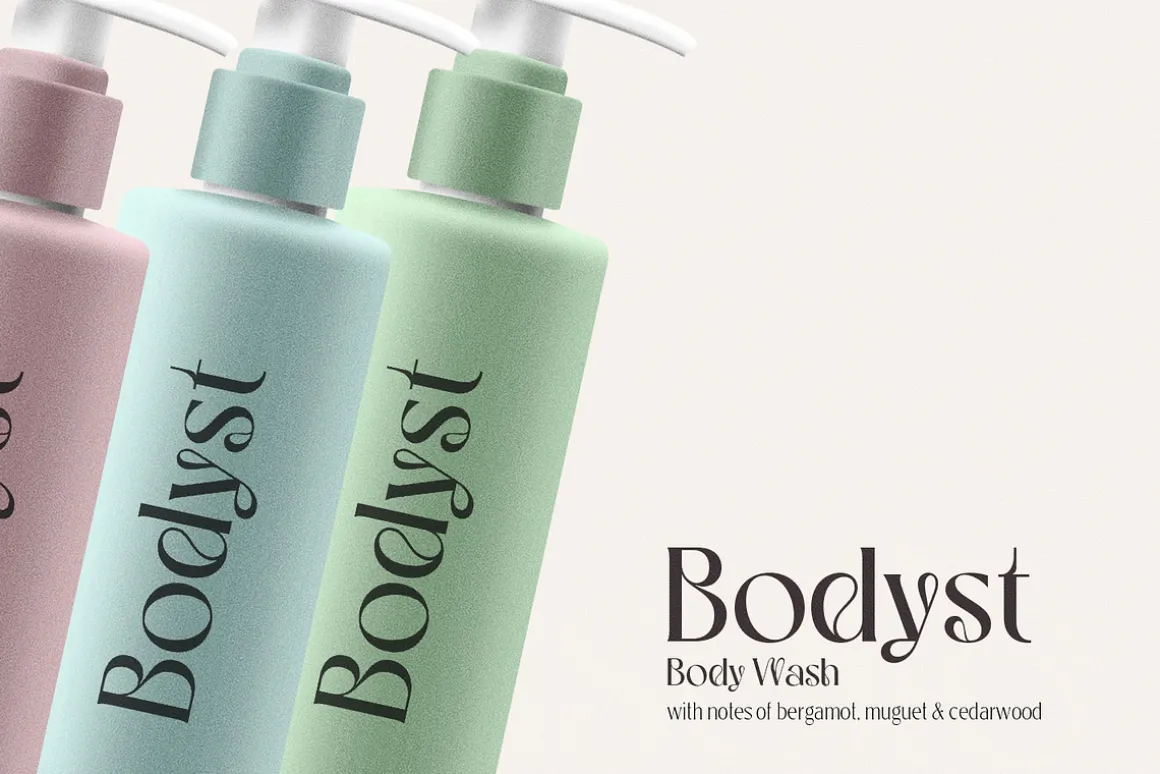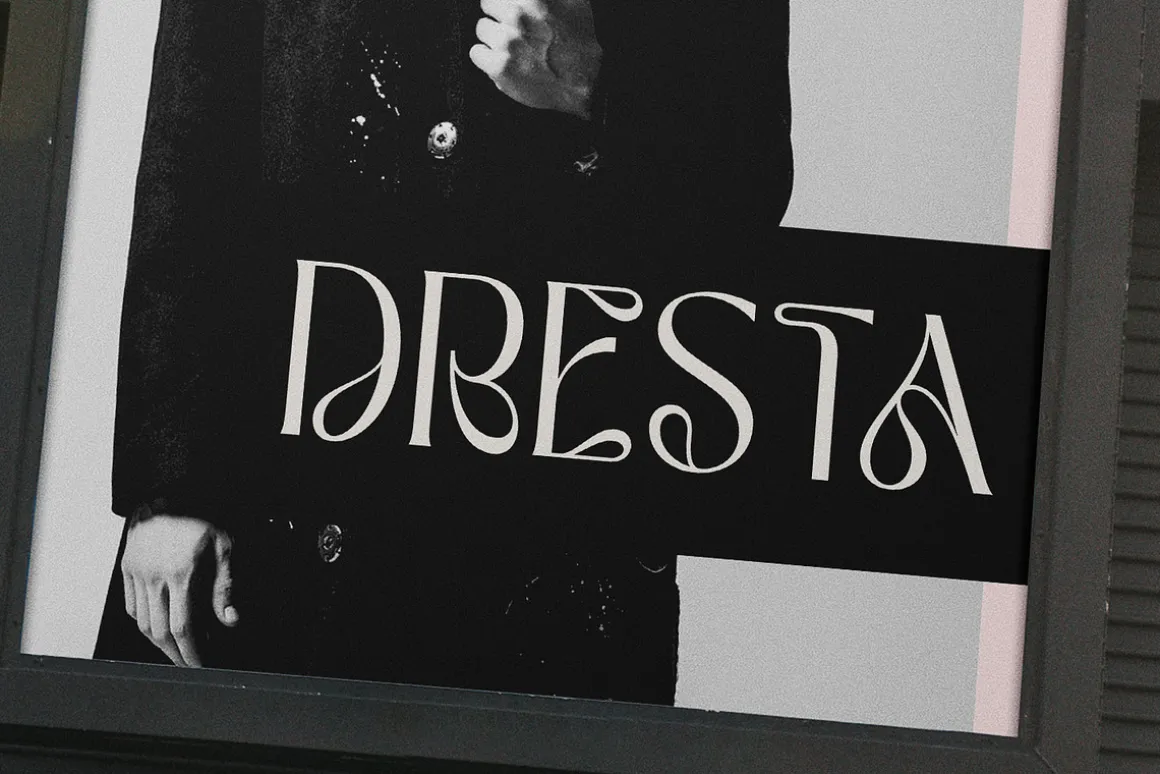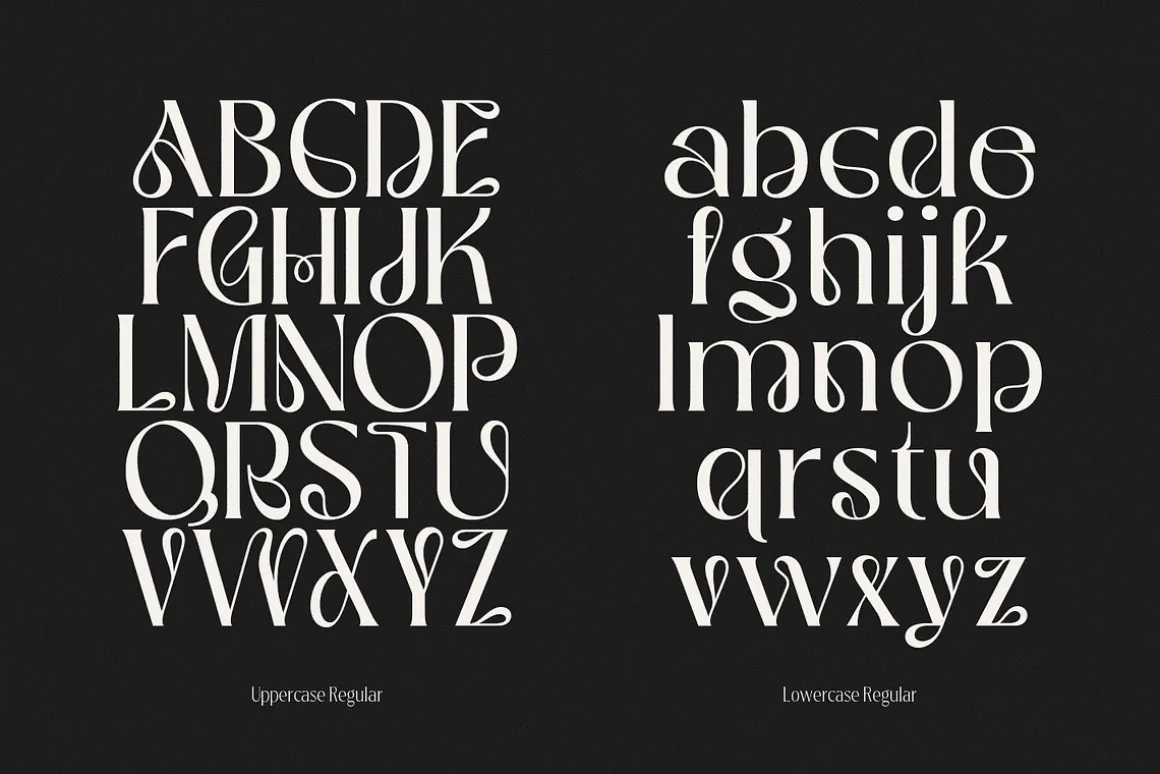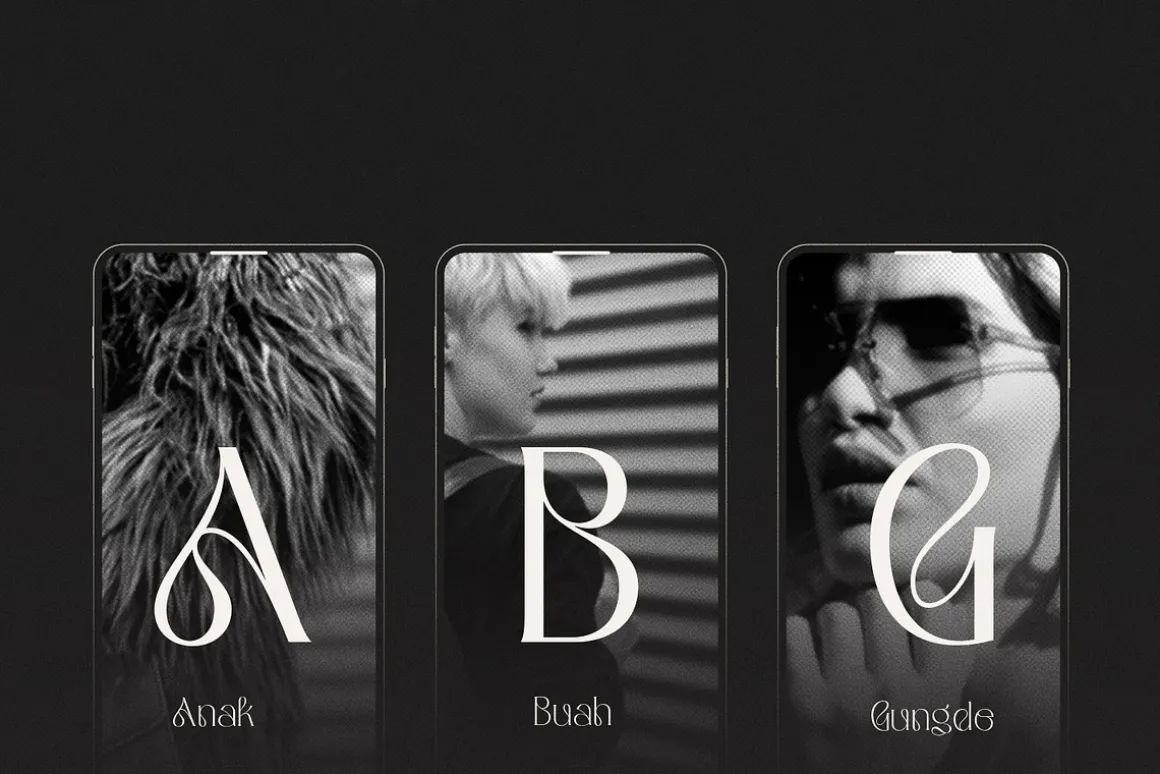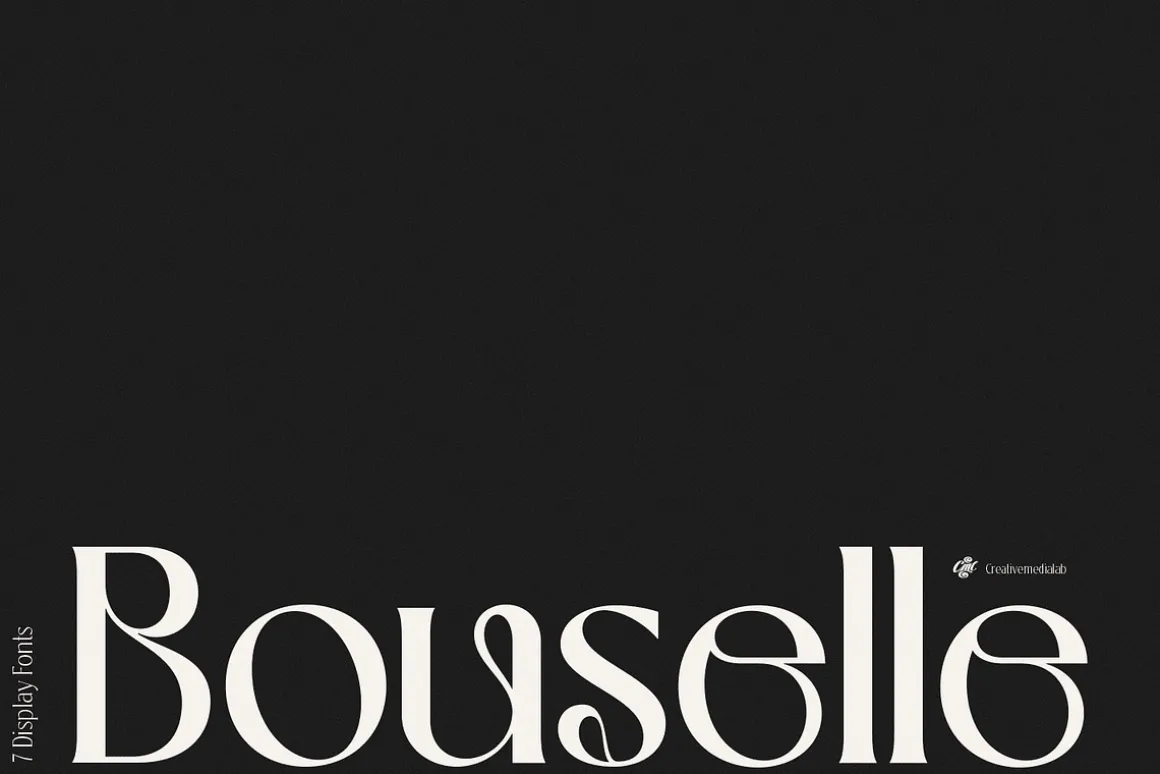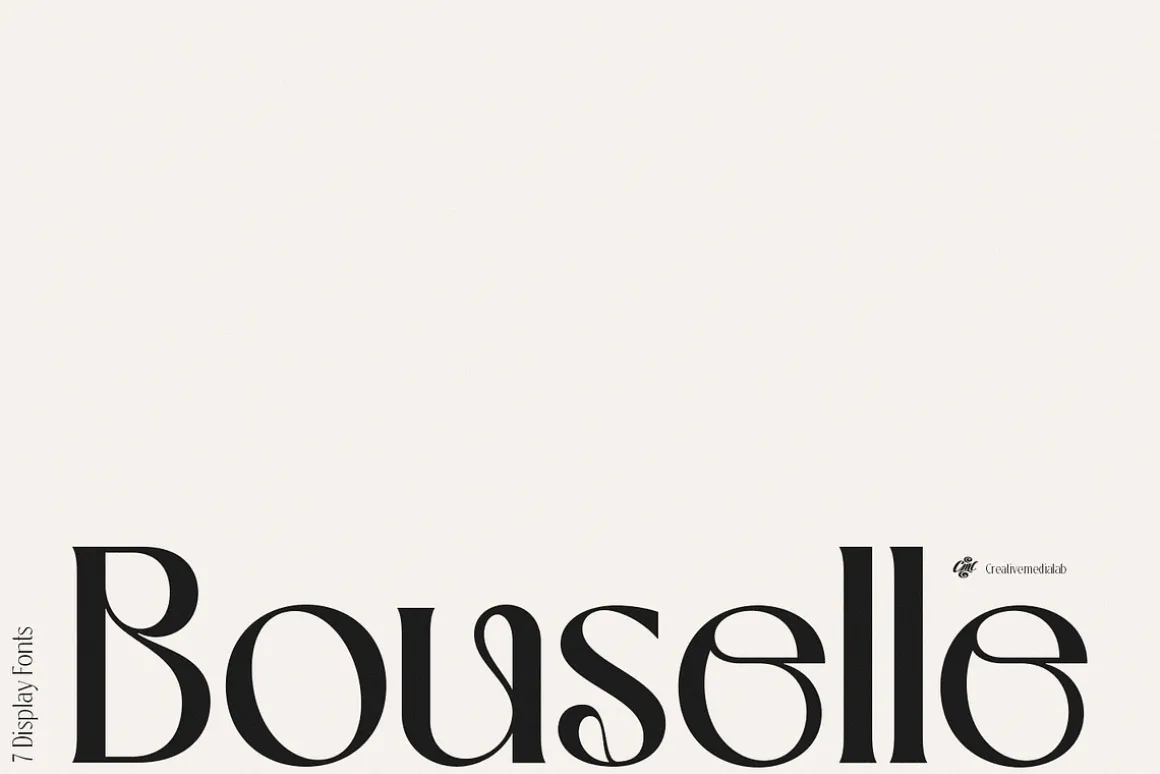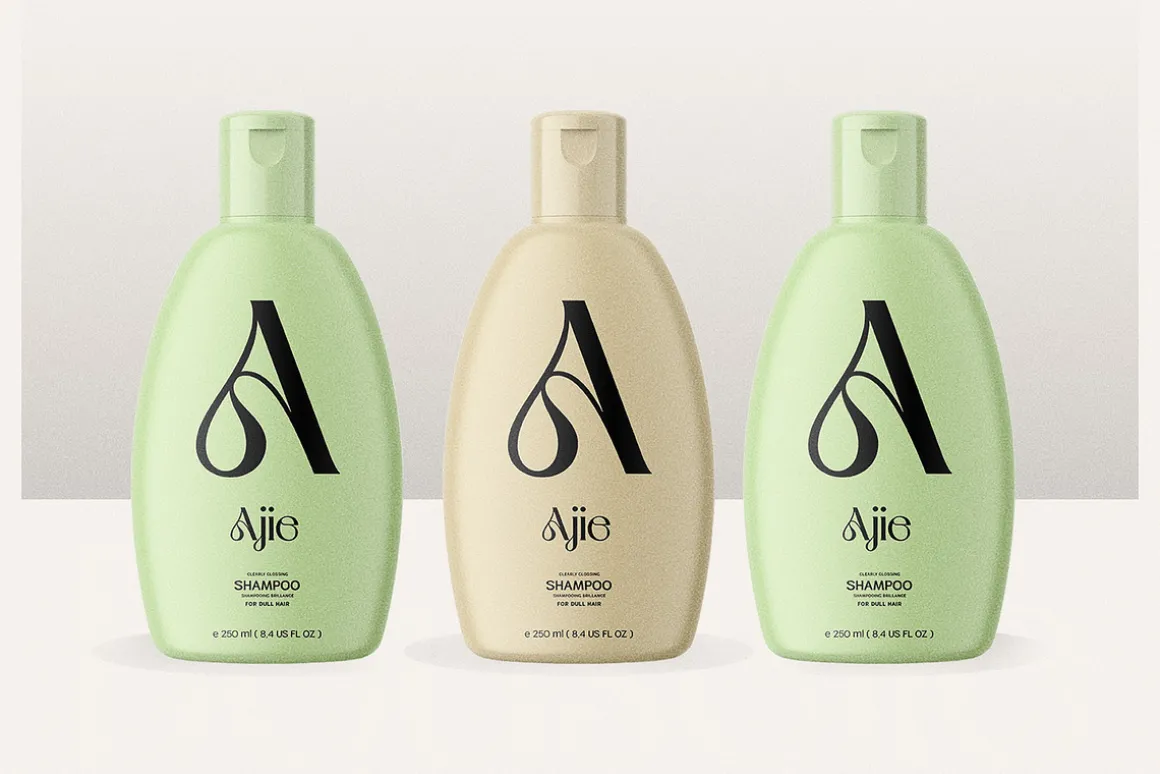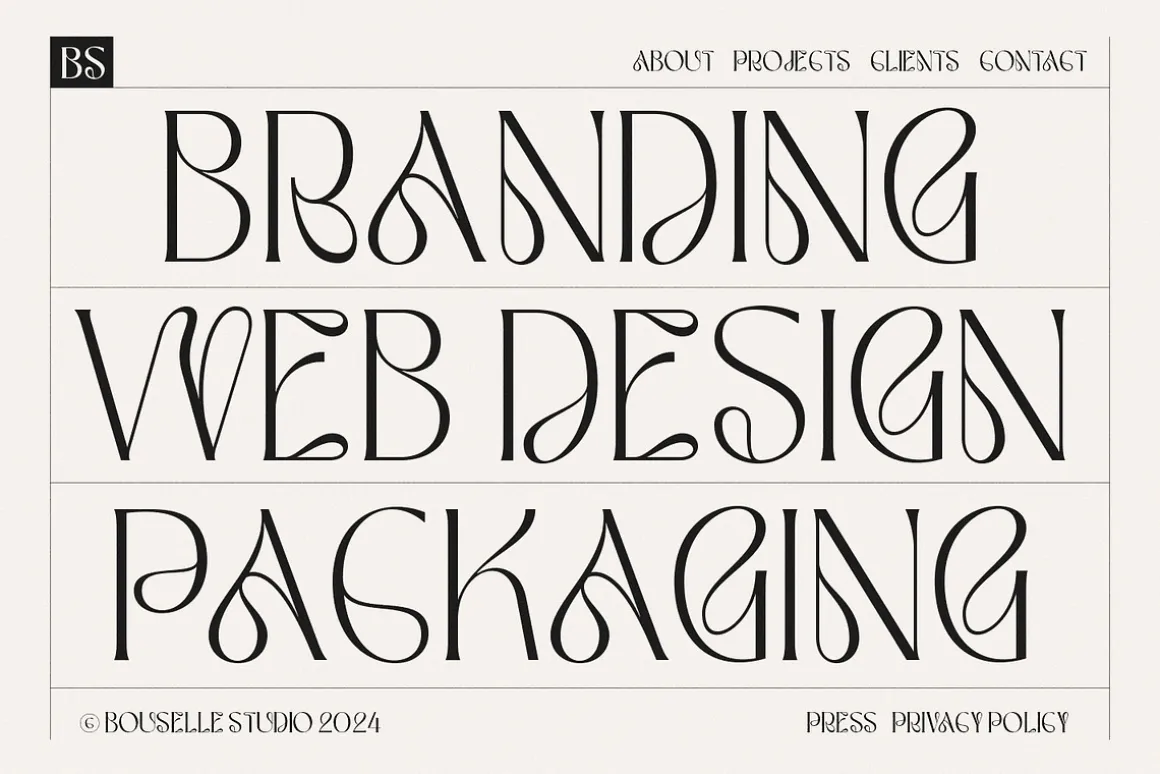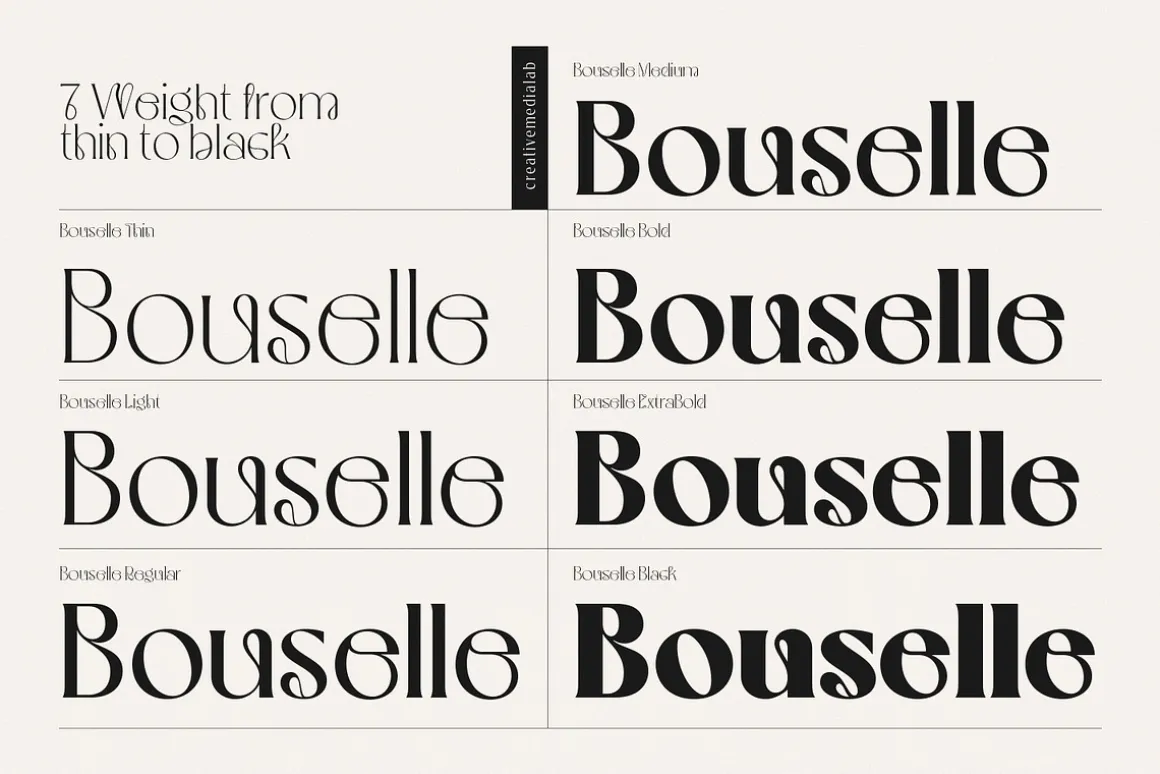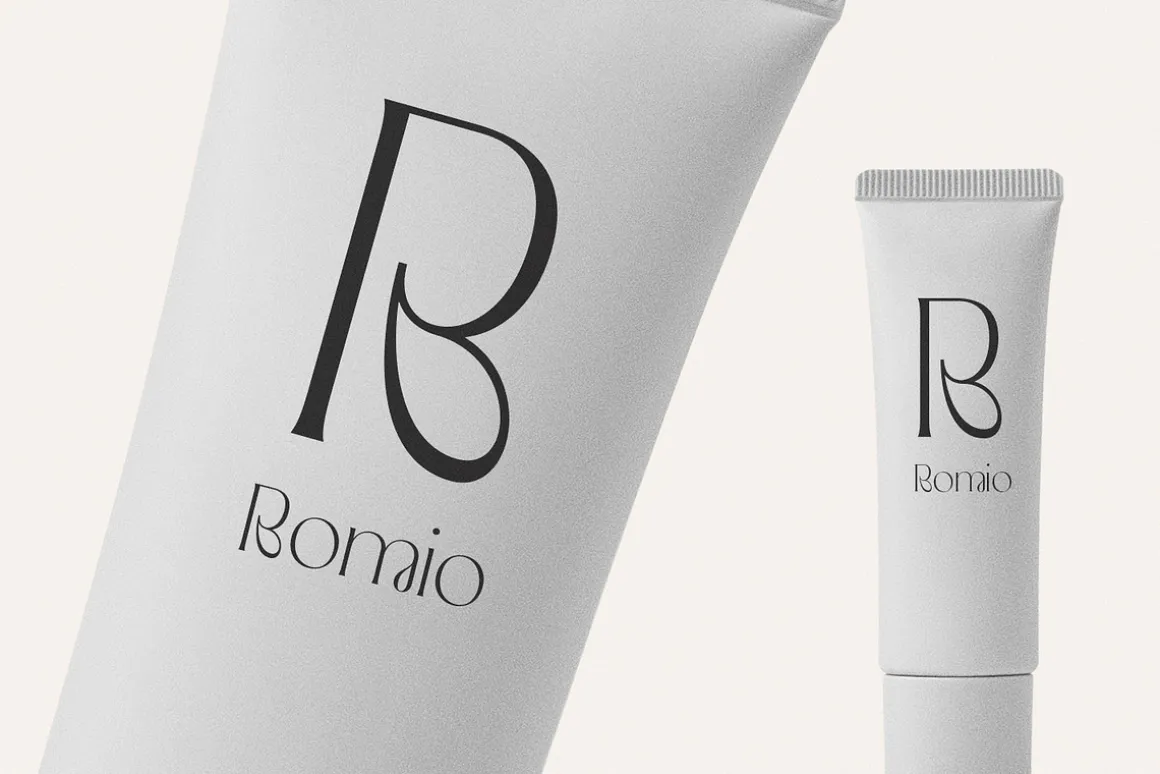
Introducing our newest collection, Bouselle.
Bouselle is modern and unique, with a 70s feel. This classic era has influenced this serif font by highlighting flexible curved lines in some characters.
Inspired by the psychedelic era in the 70s and combined with elegant serif, it gave birth to Bouselle.
Bouselle is perfect for a title or header, and pairs well with the True Sage serif